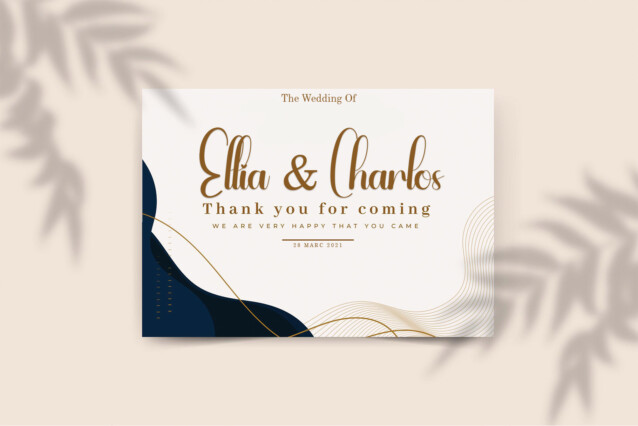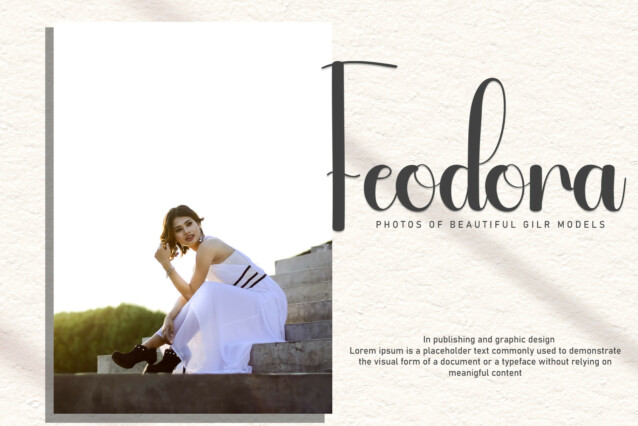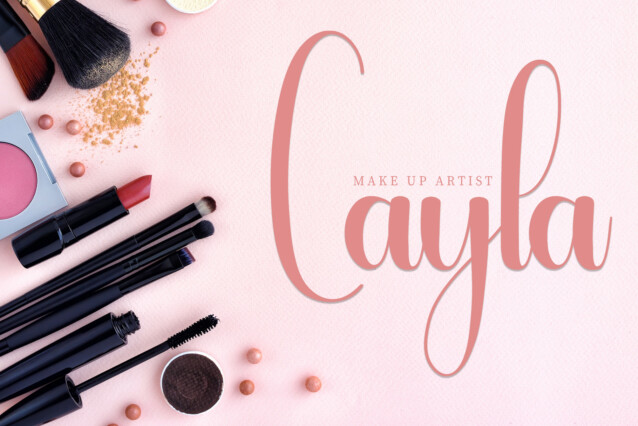
Community Script Font is a sweet and friendly handwritten display font. Cute and fun, this font is ideal for writing wedding invitations, cards, or any other design that might need a playful touch!